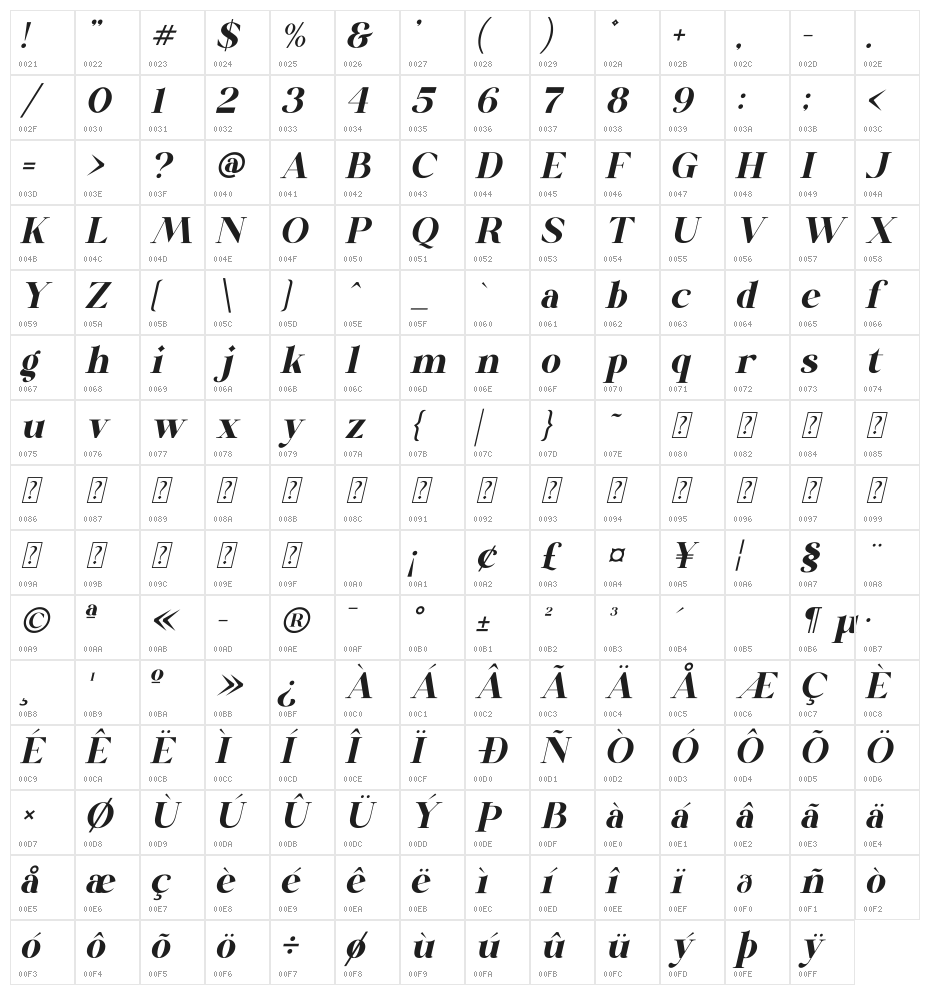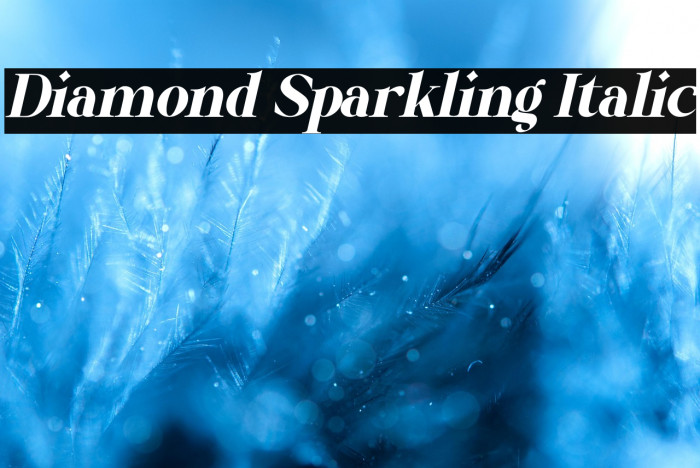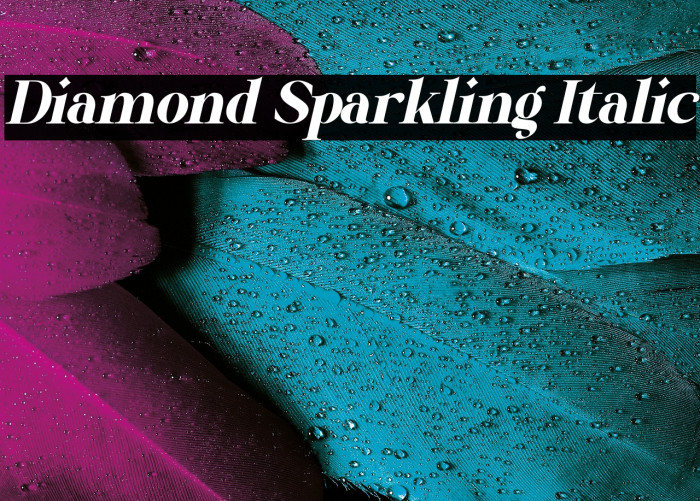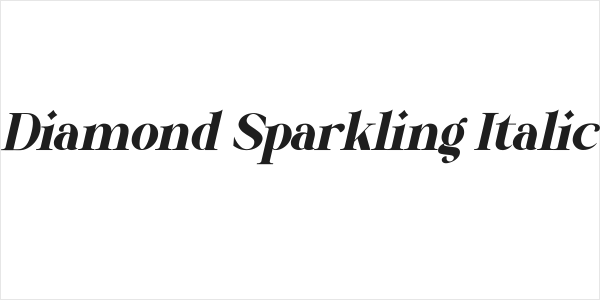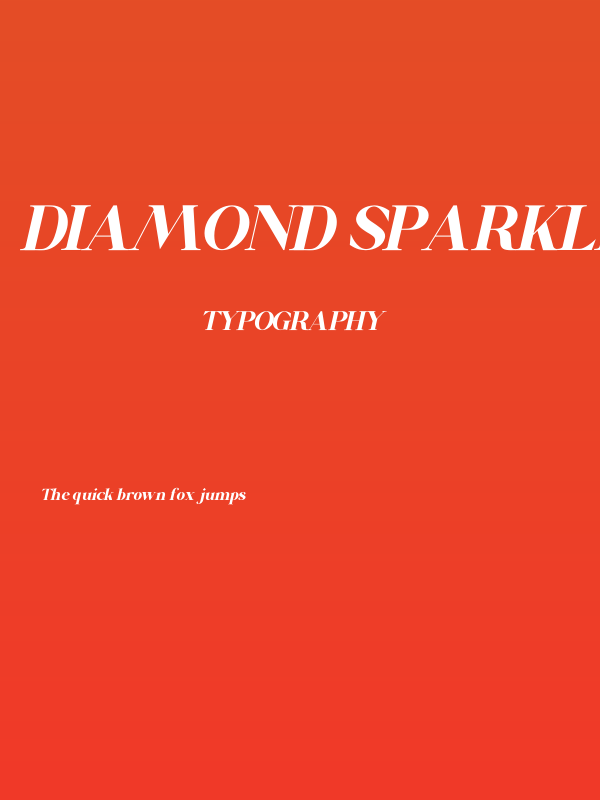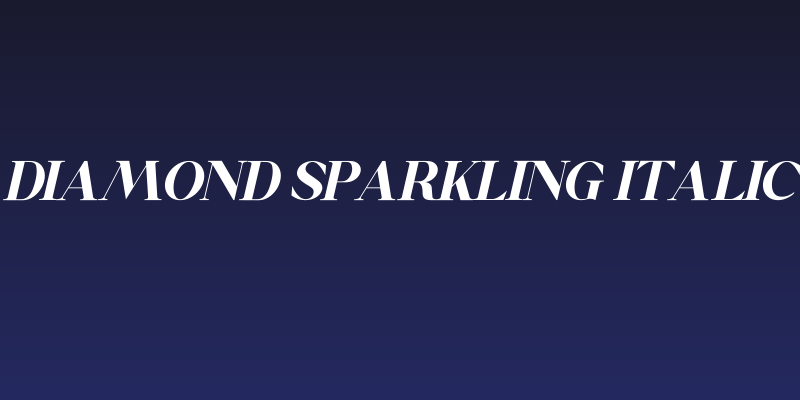
Diamond Sparkling Italic Font
Diamond Sparkling Italic Description
This font exudes elegance and sophistication with its italicized and bold letterforms. The characters are sharply defined, featuring high contrast between thick and thin strokes, which adds a dynamic and luxurious feel. The uppercase letters stand tall with a slight slant, while the lowercase letters maintain a consistent flow, enhancing readability. Numbers and special characters are crafted with the same attention to detail, ensuring a cohesive appearance across all text elements. The overall style is modern yet timeless, making it suitable for a variety of high-end design projects.
Use CaseHeadlines, Logos, Invitations
Proposed ProjectsIdeal for luxury branding, editorial design, wedding invitations, and high-end product packaging.